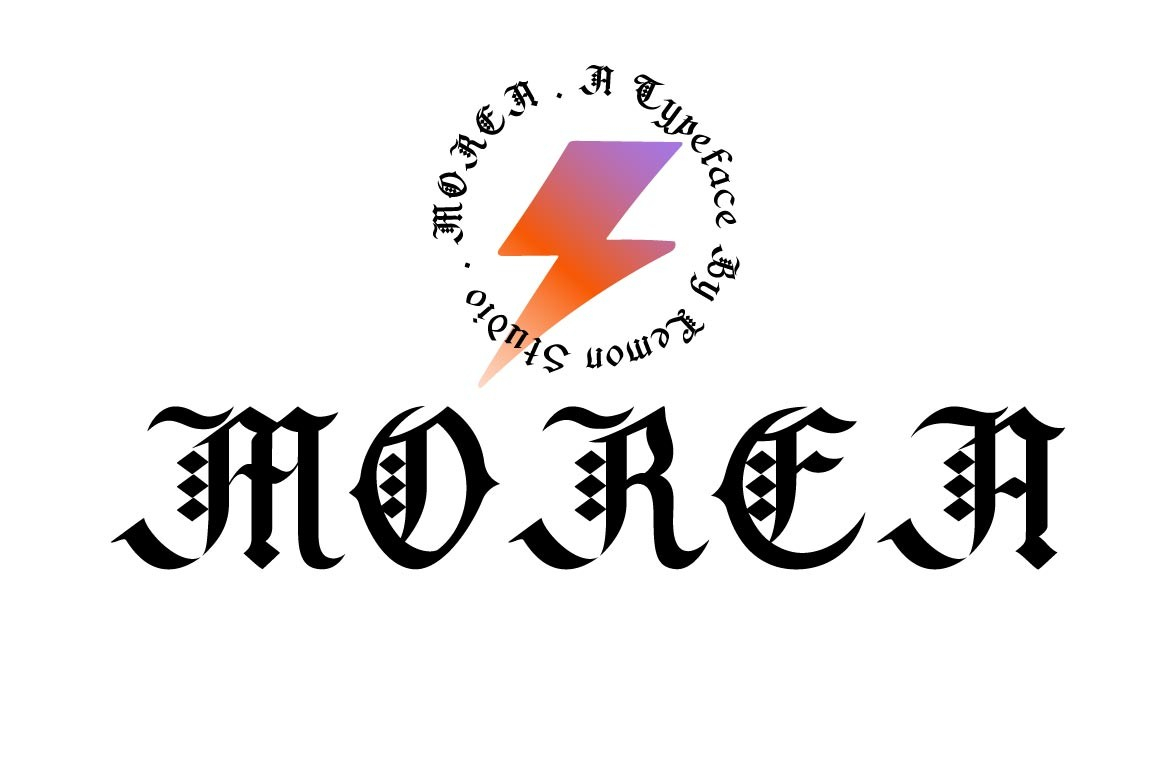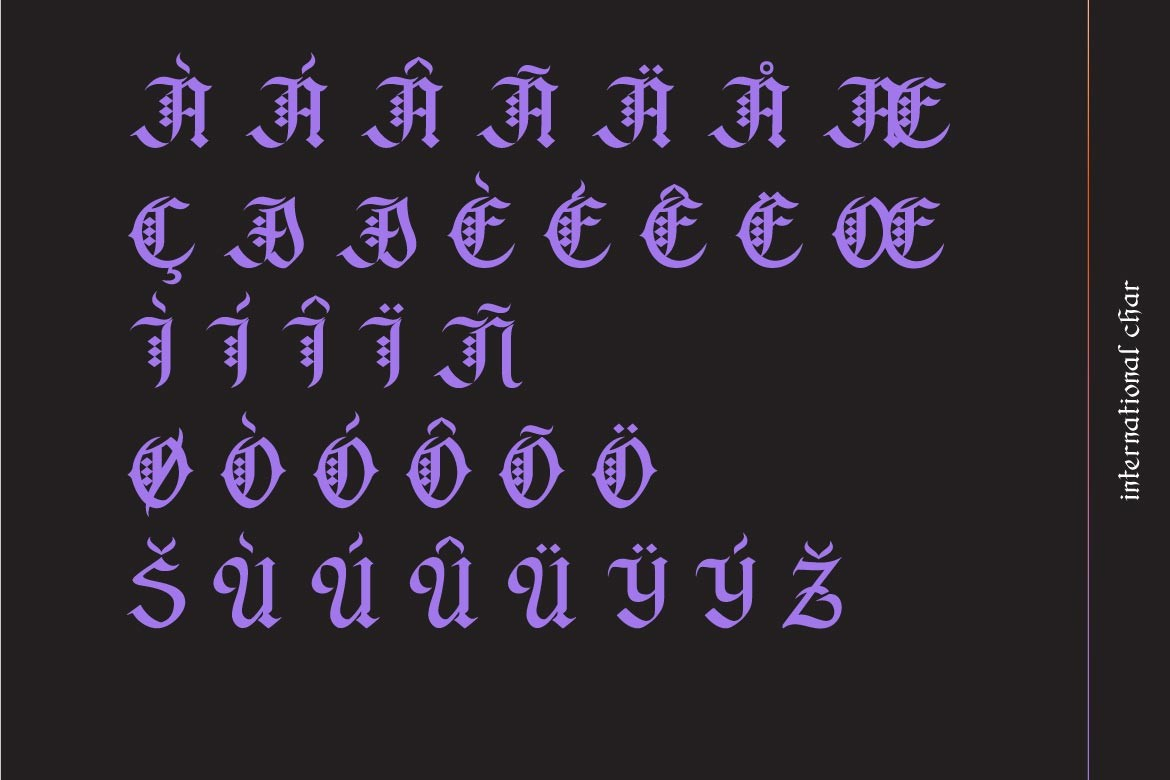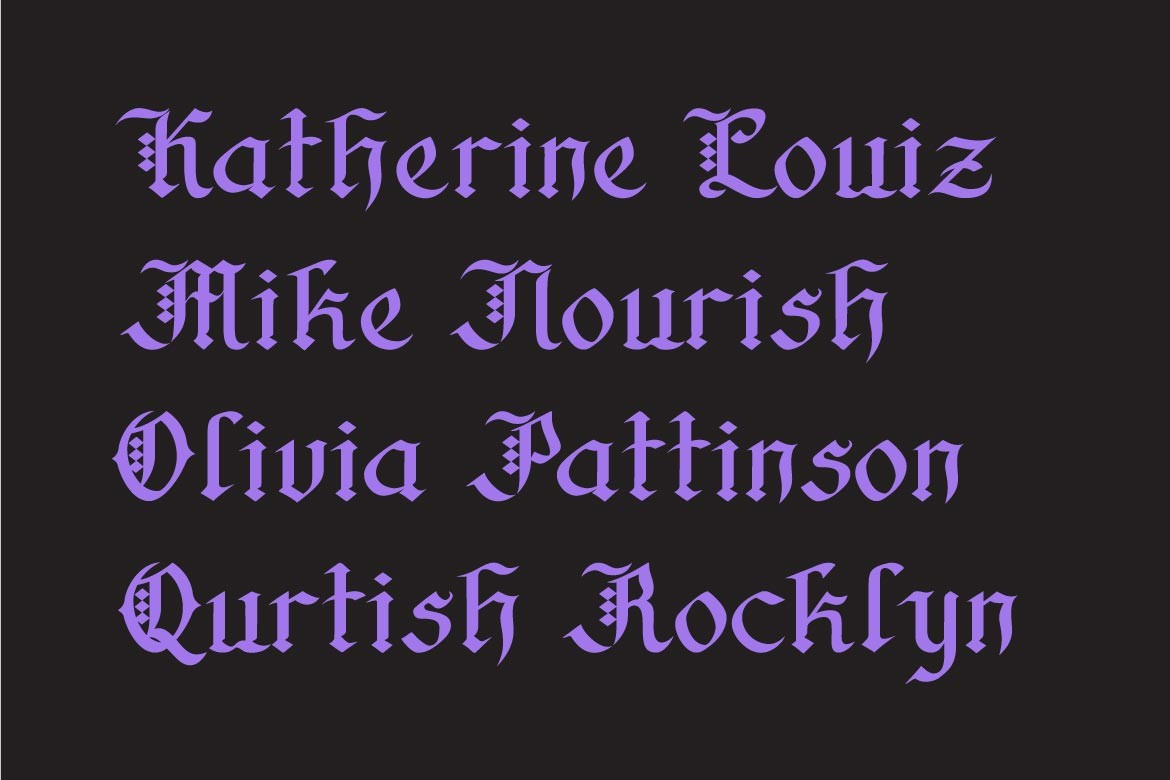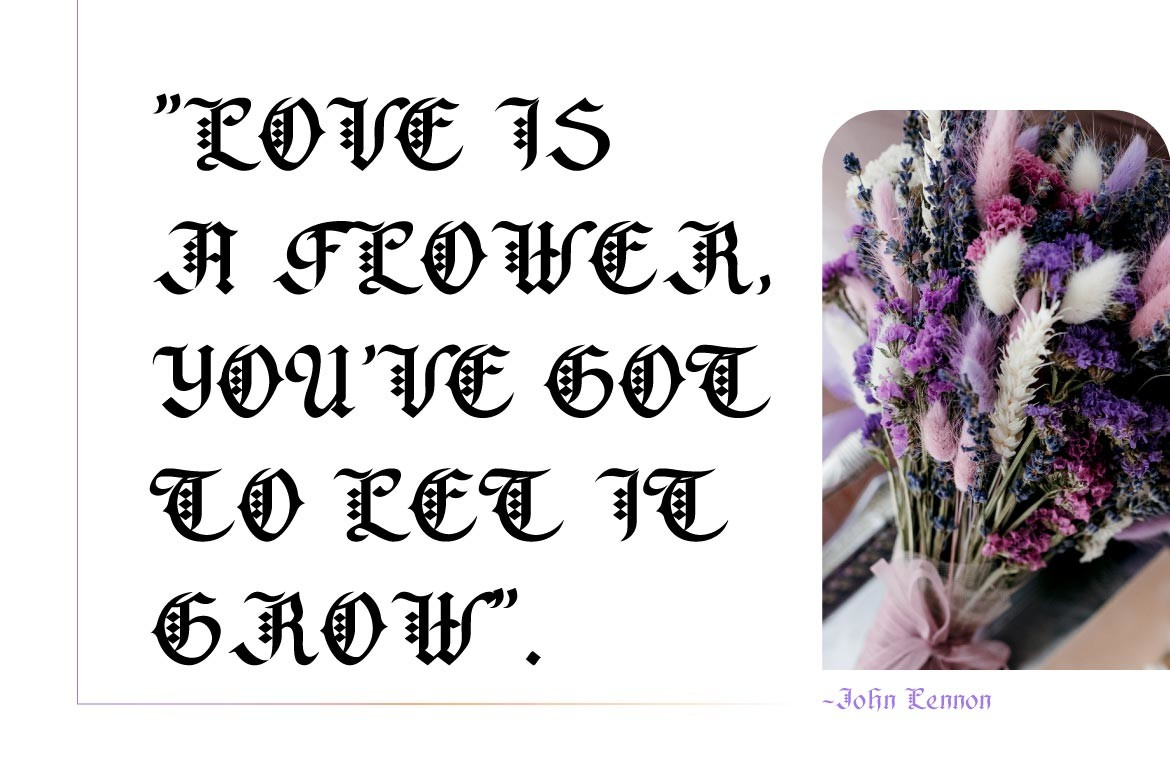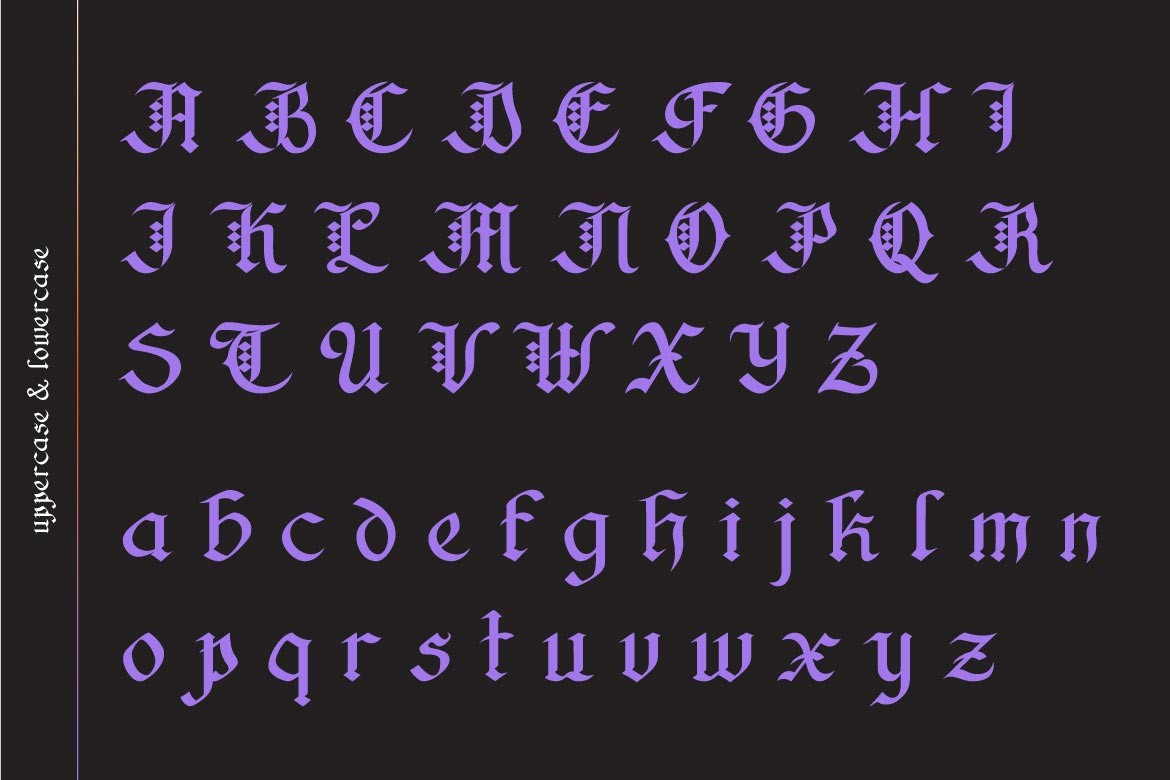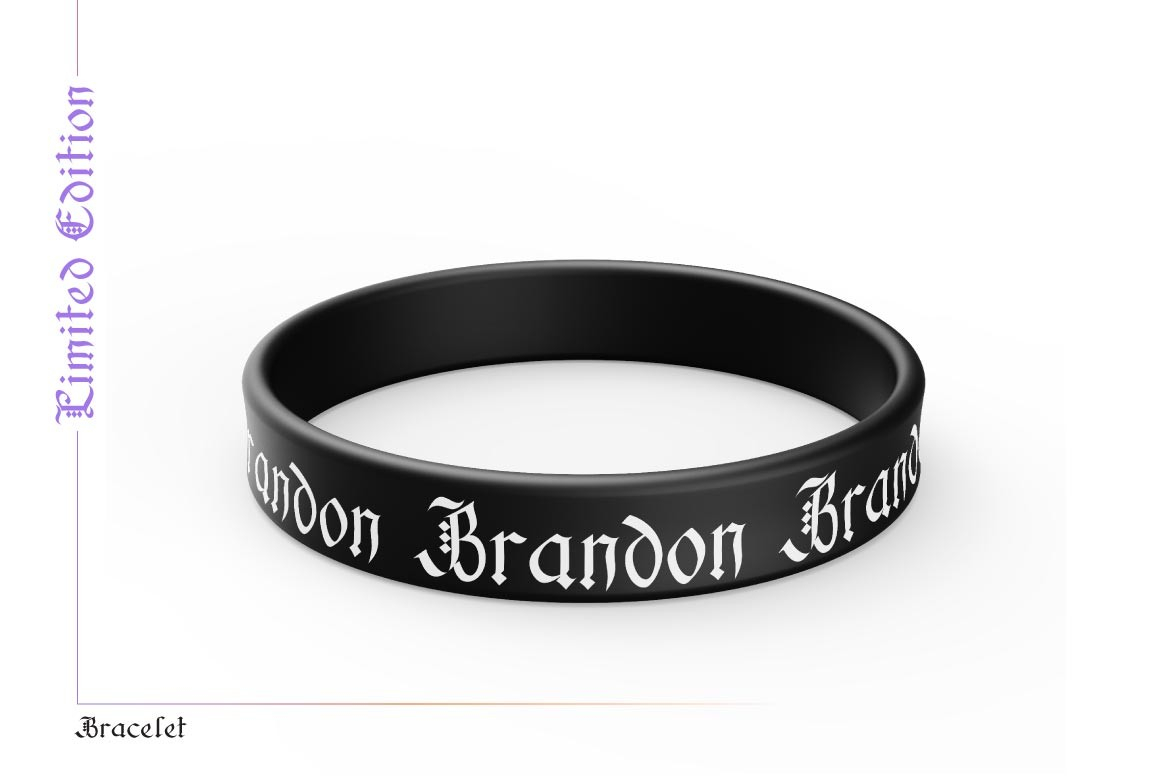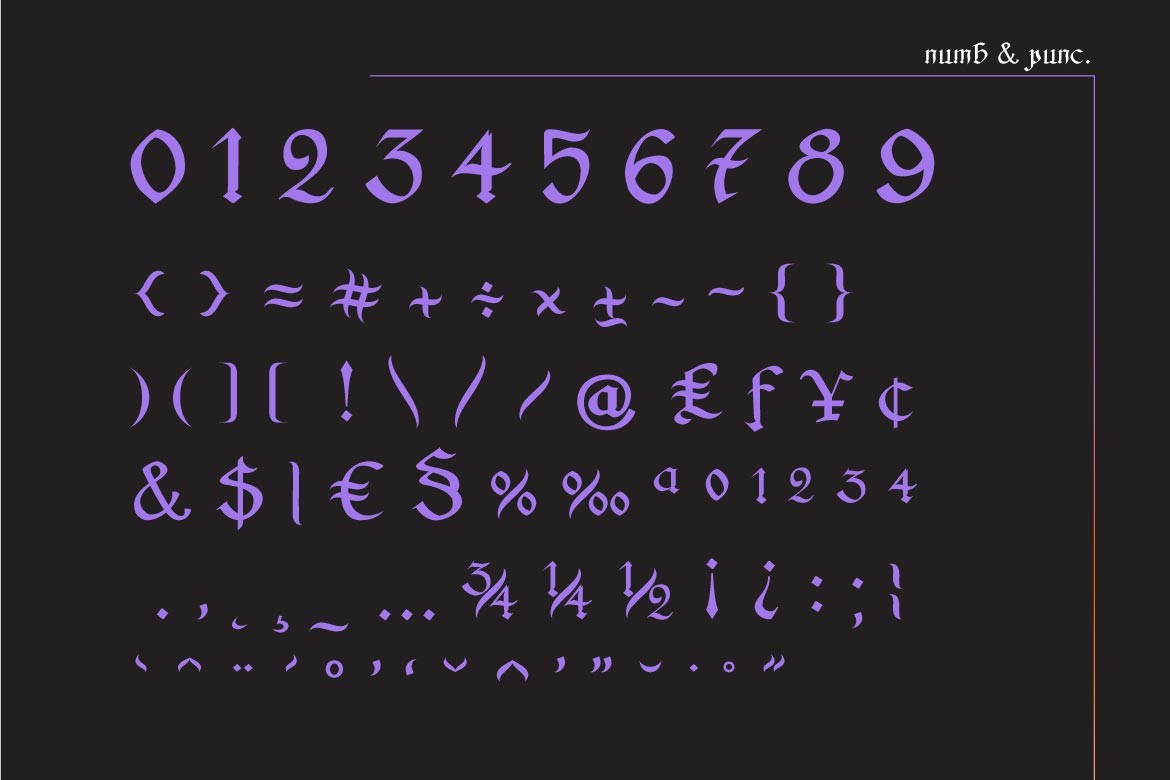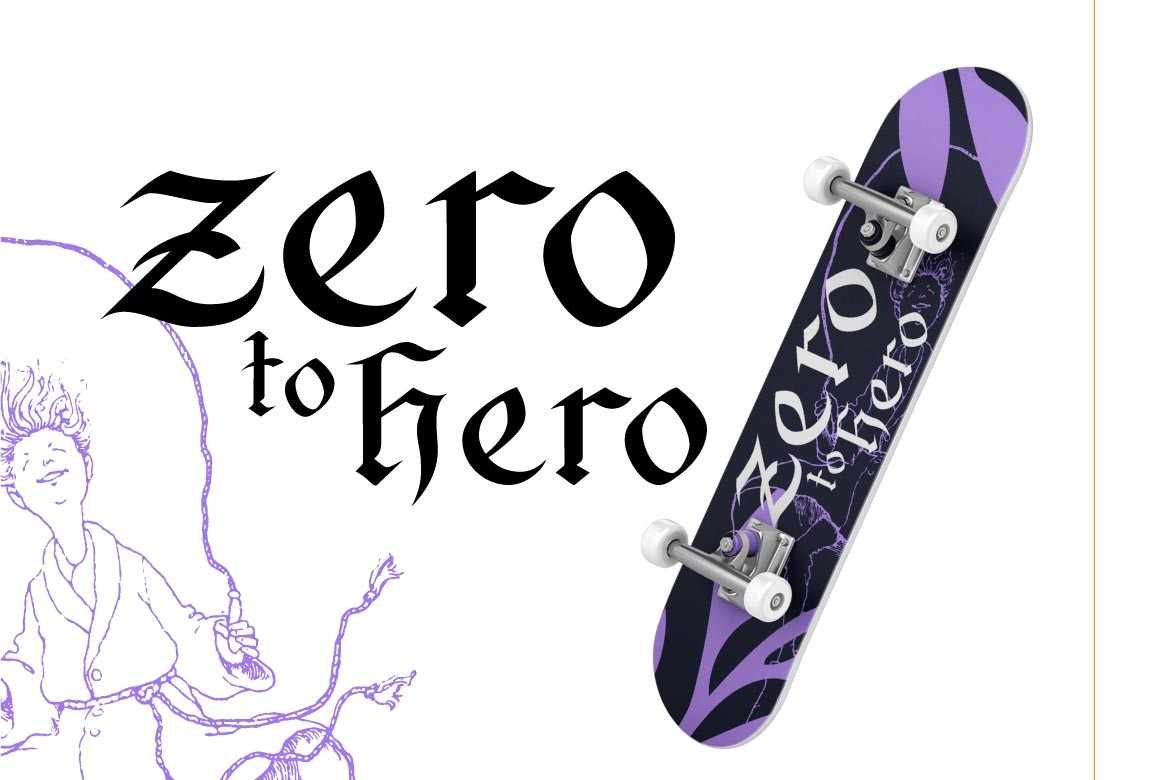
Morea Font
About Morea Font
Morea is a bold, distinct and gothic styled blackletter font. It will elevate a wide range of crafting ideas, from cards, to branding, labels and much more.